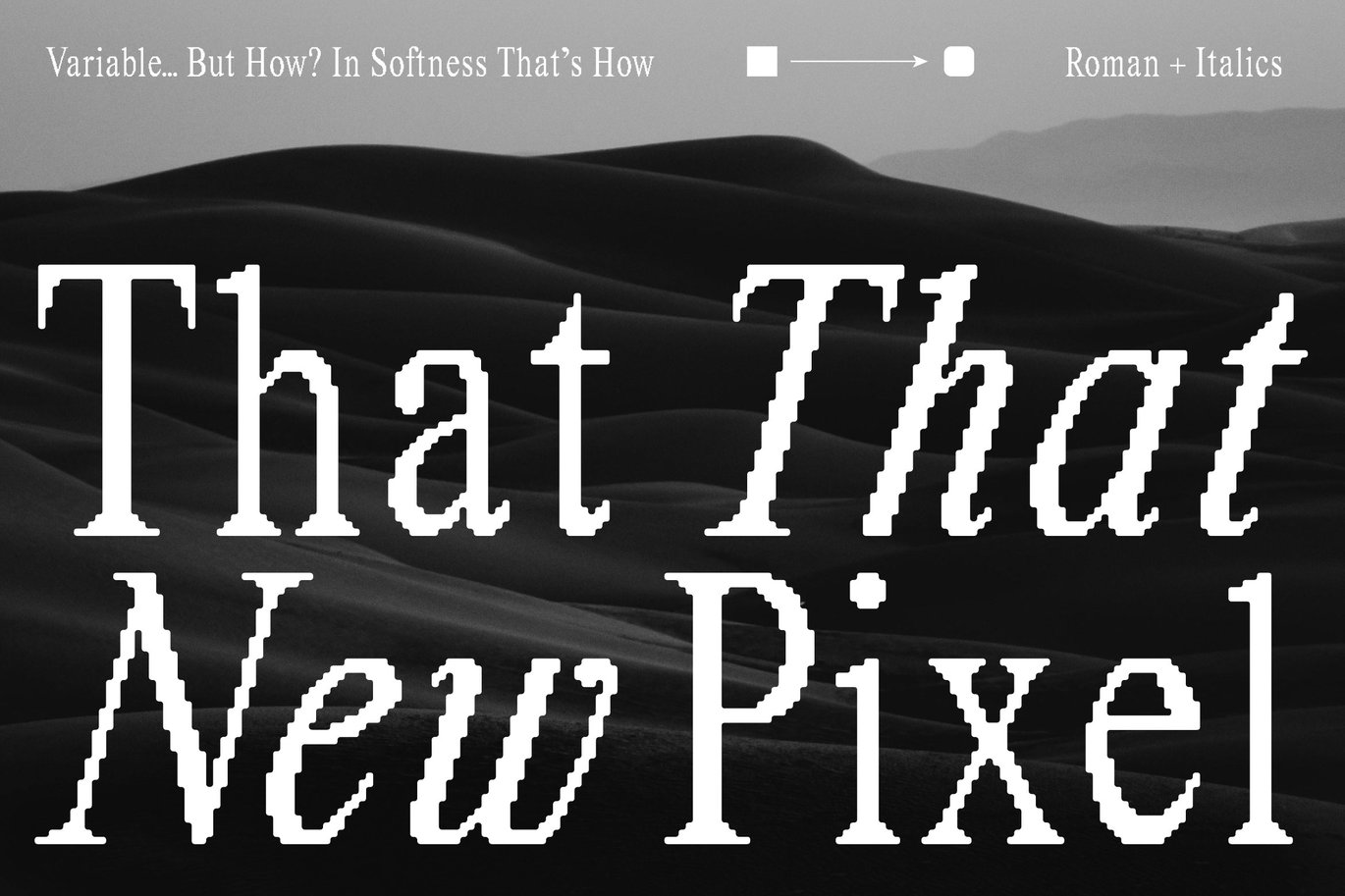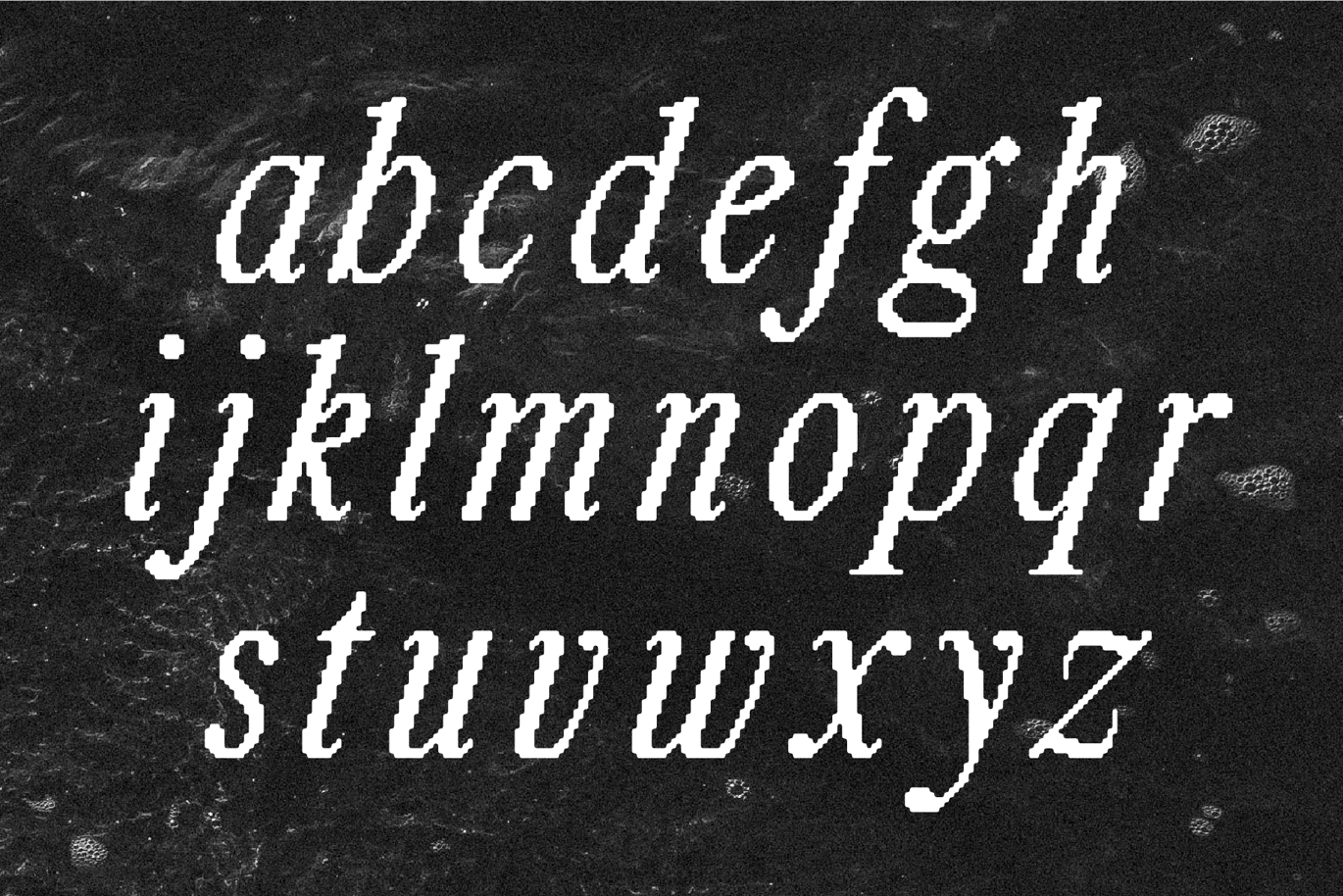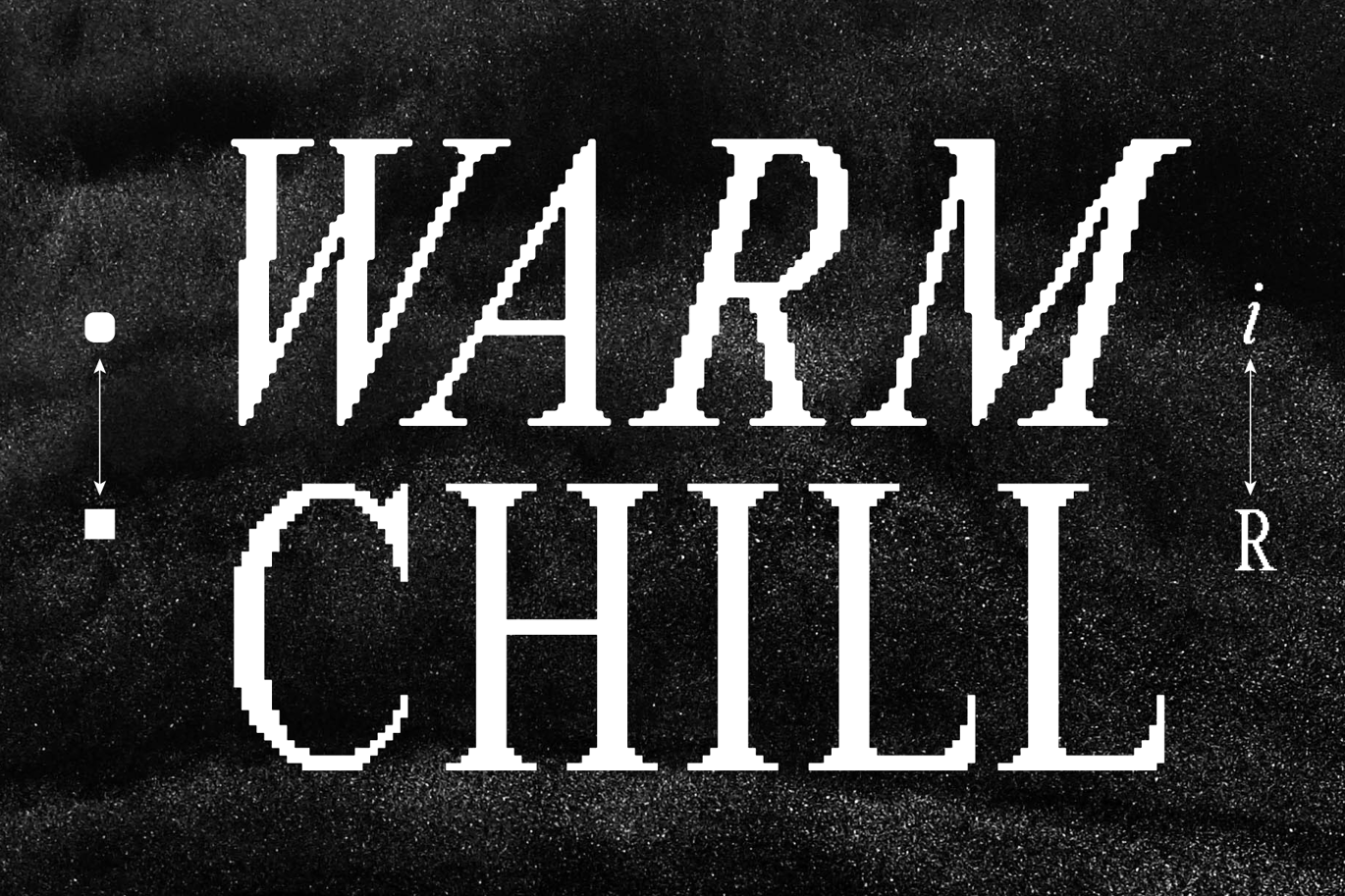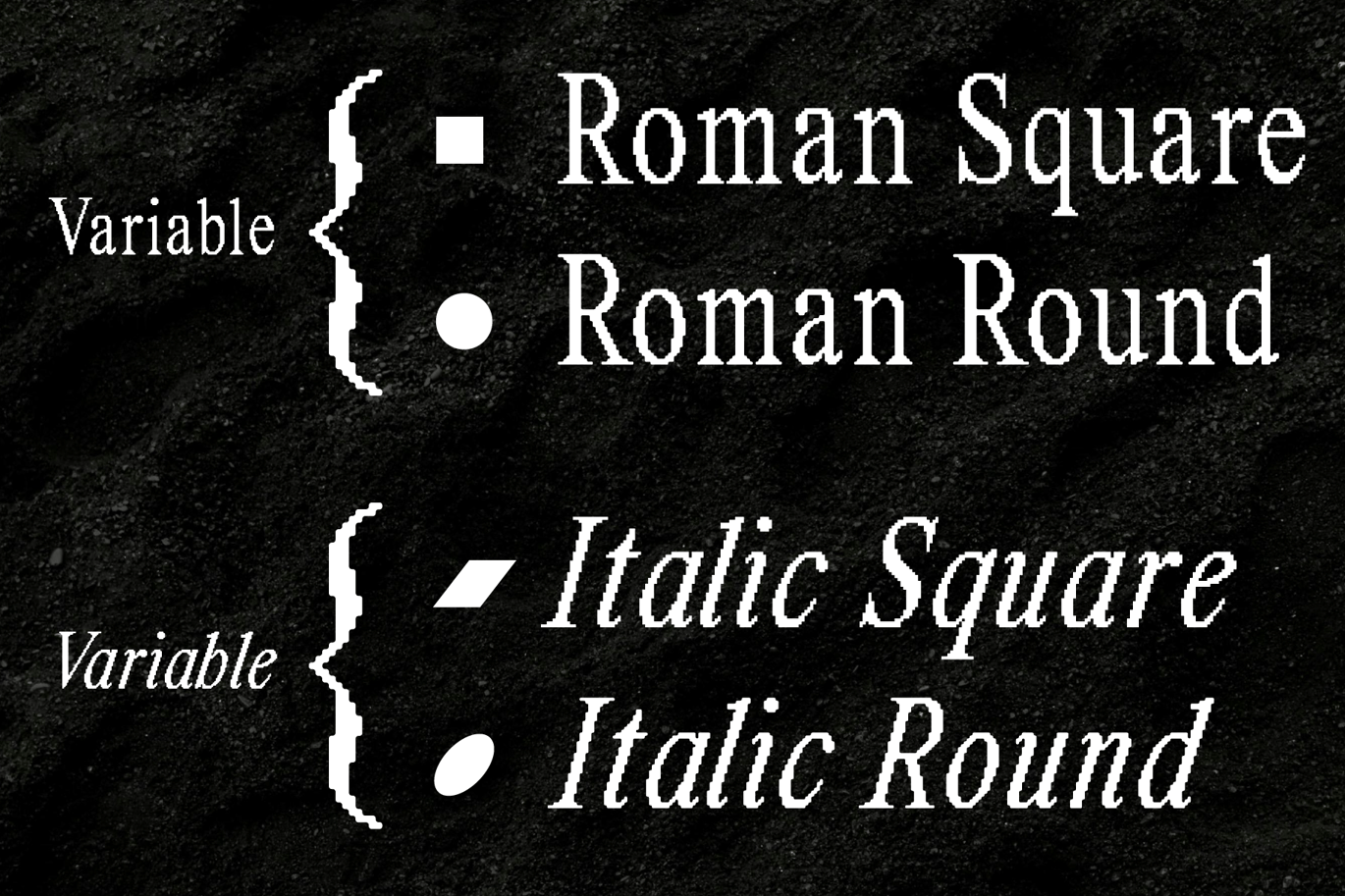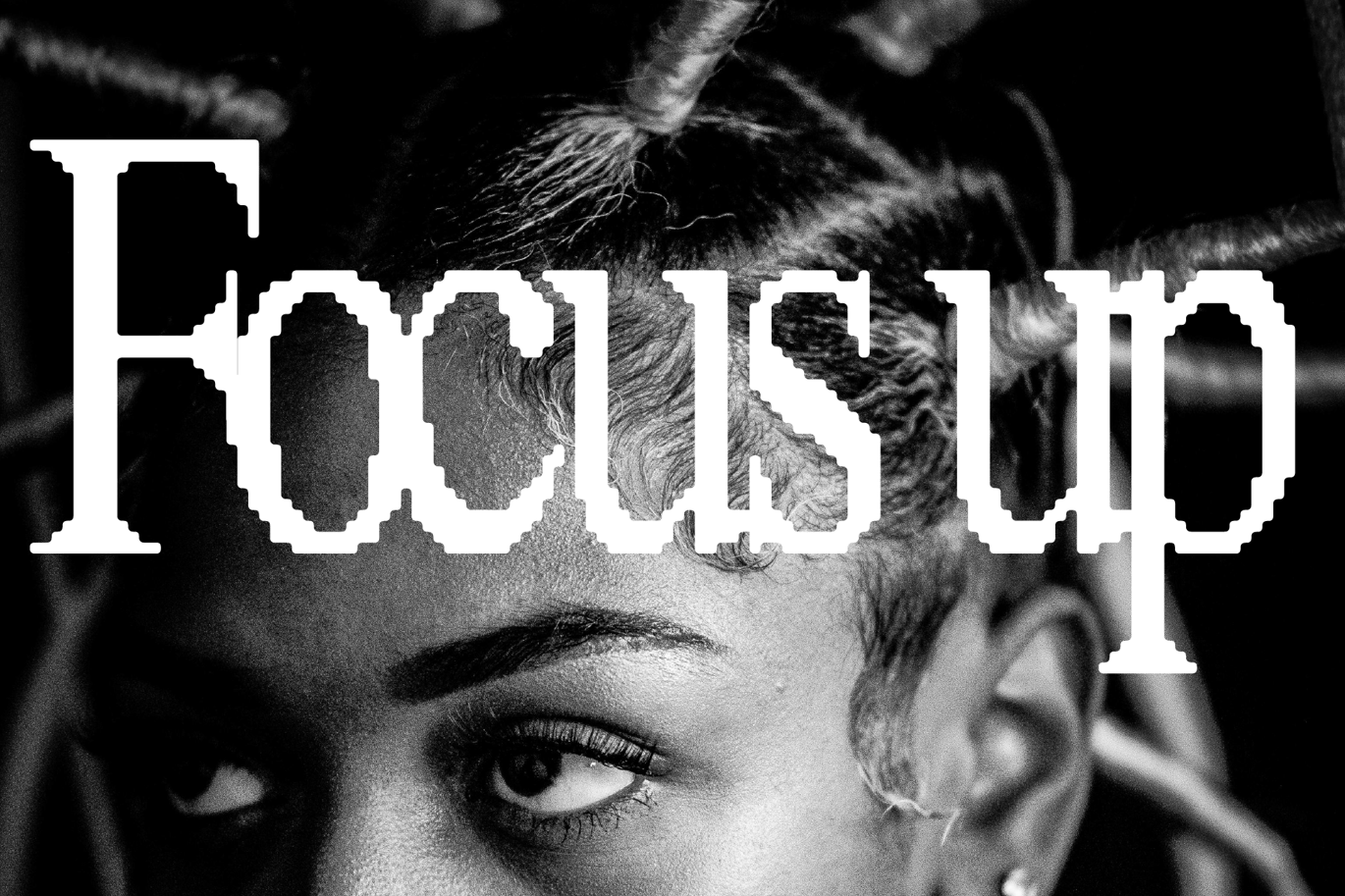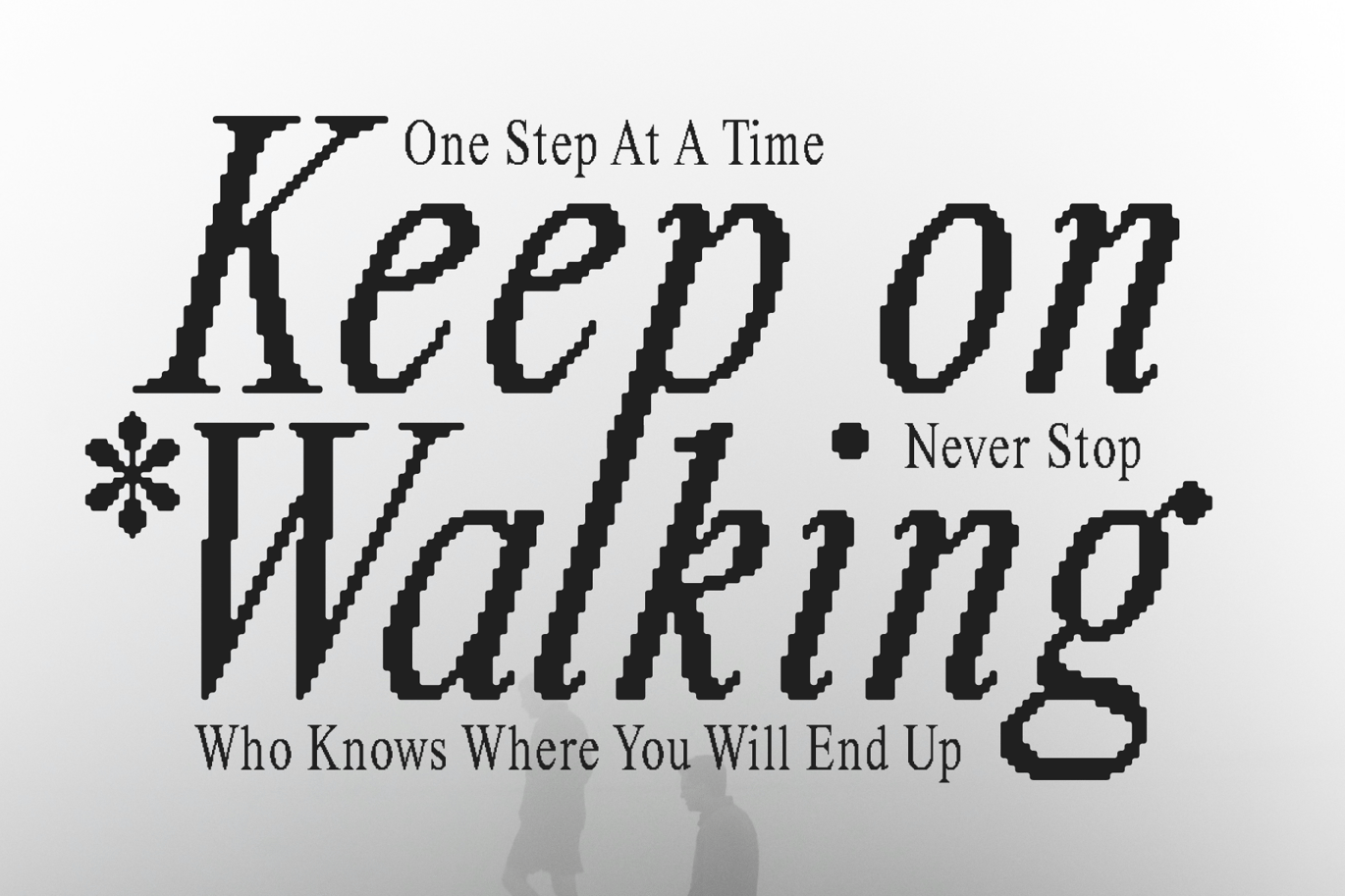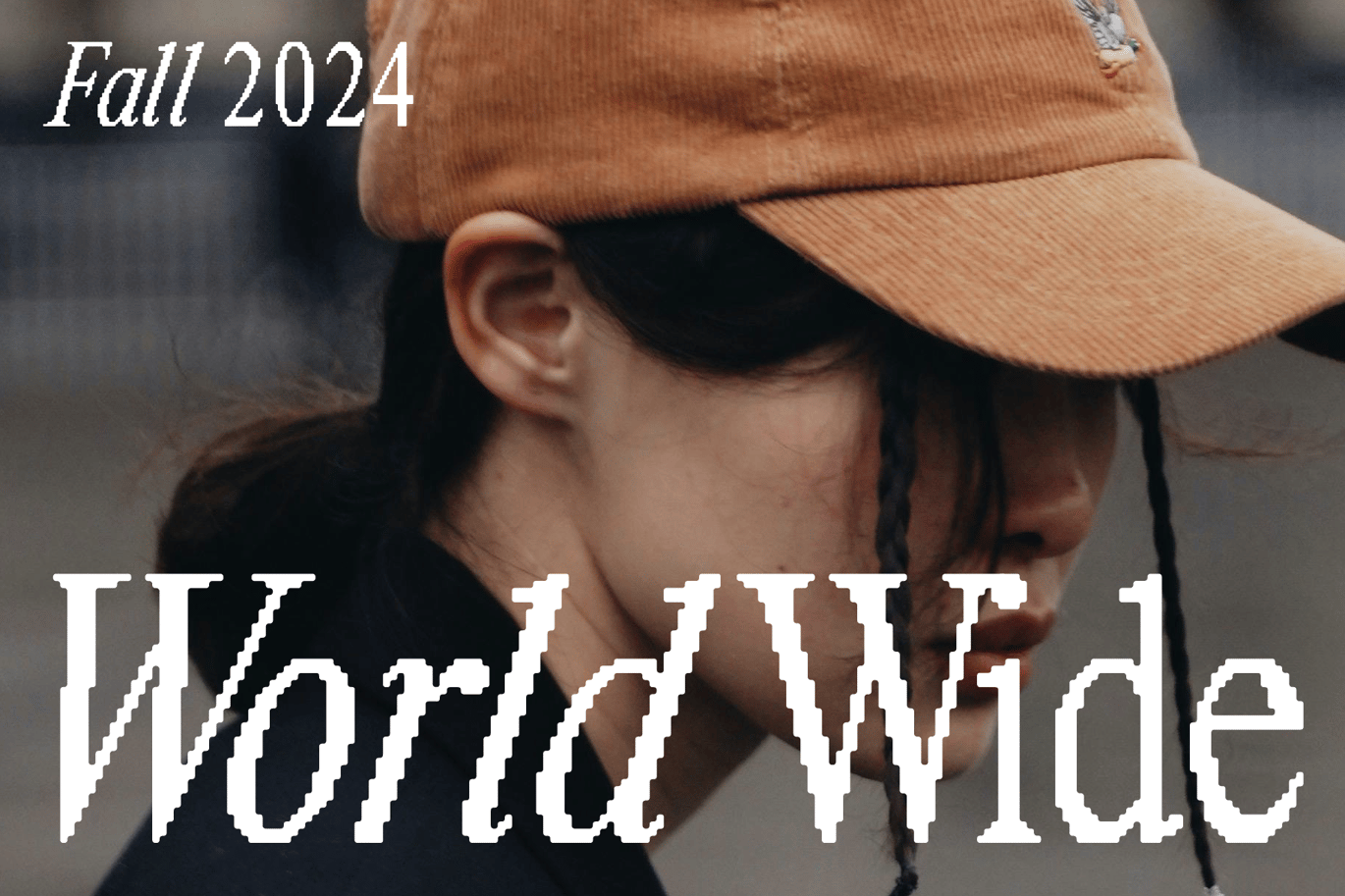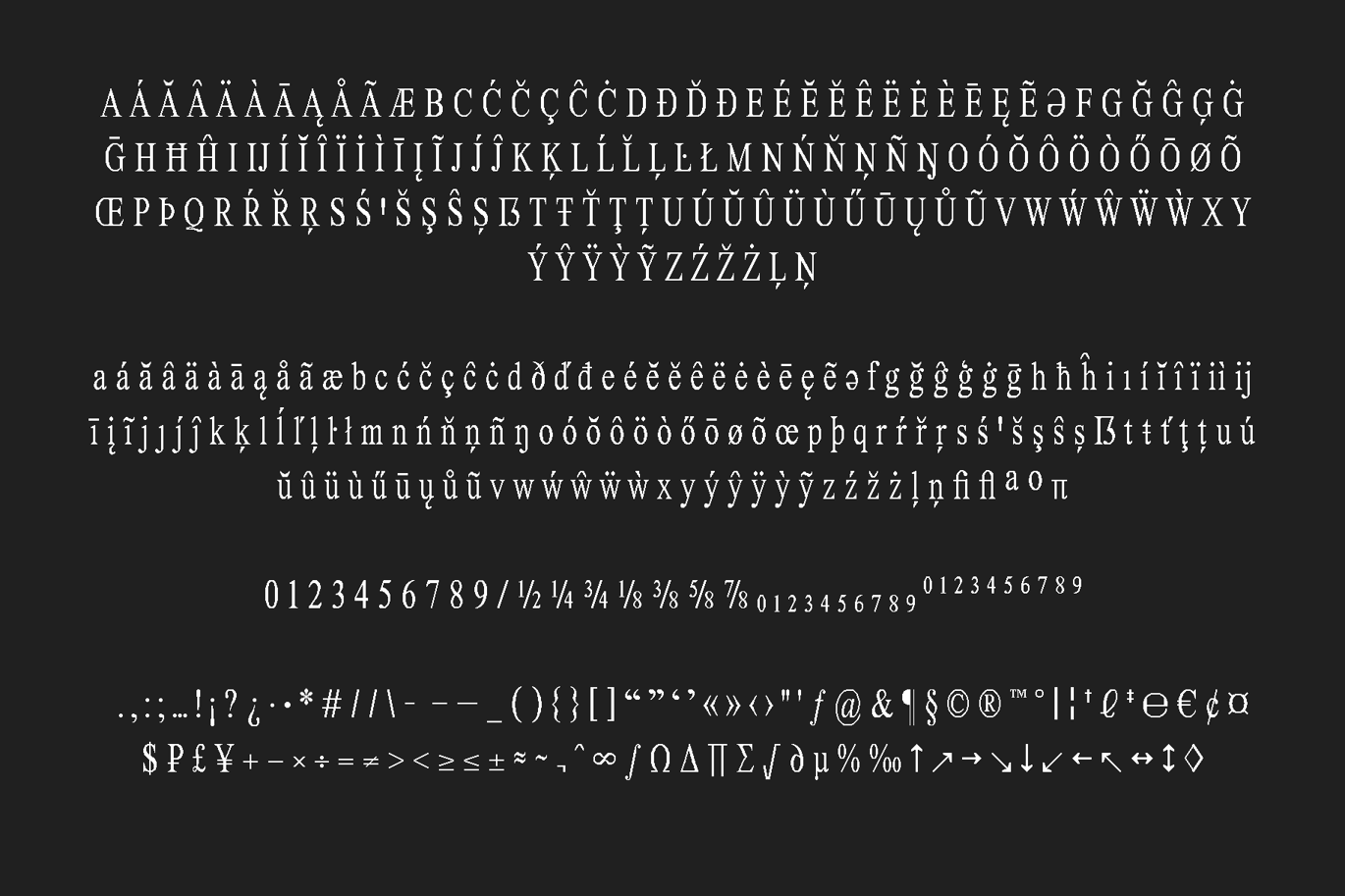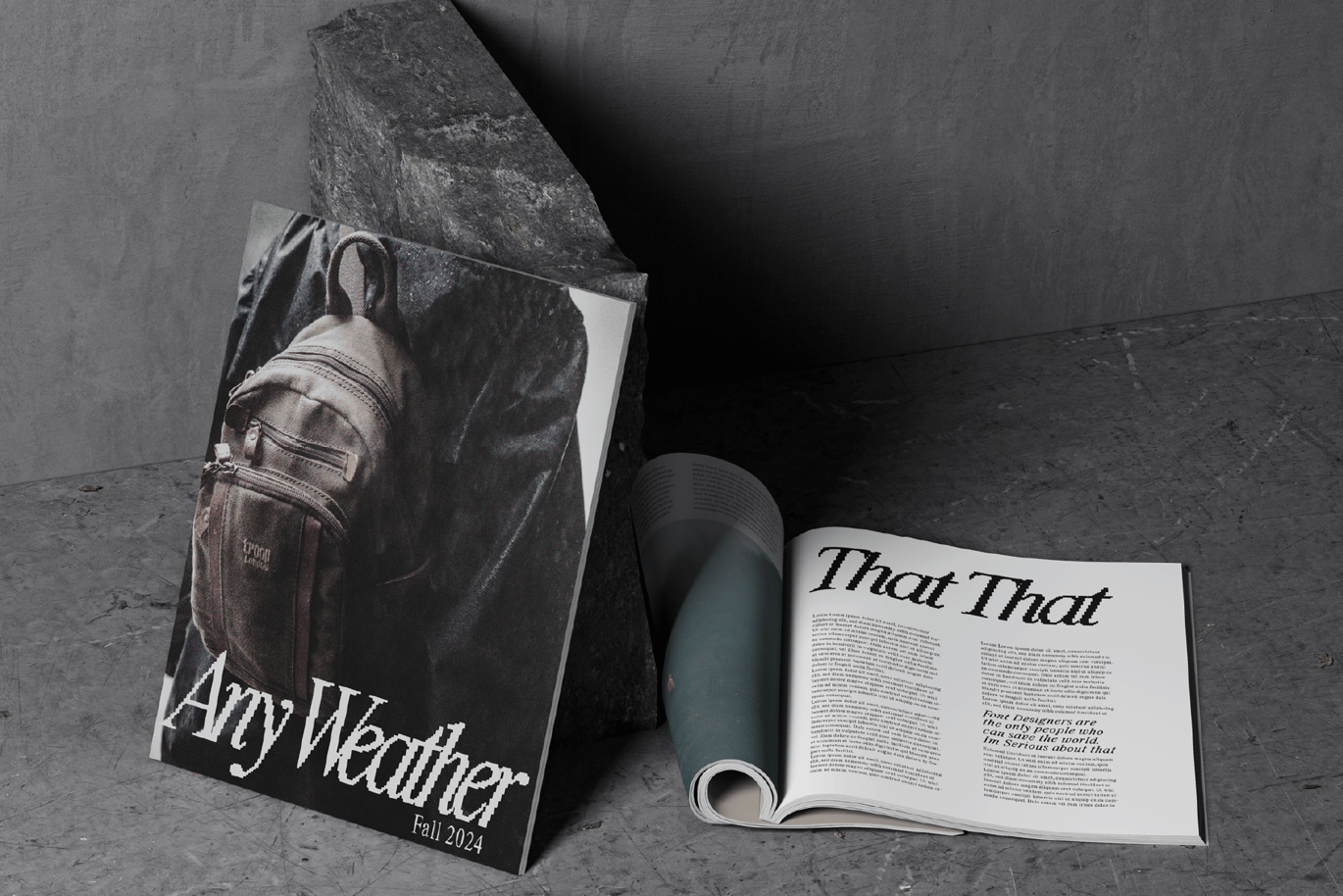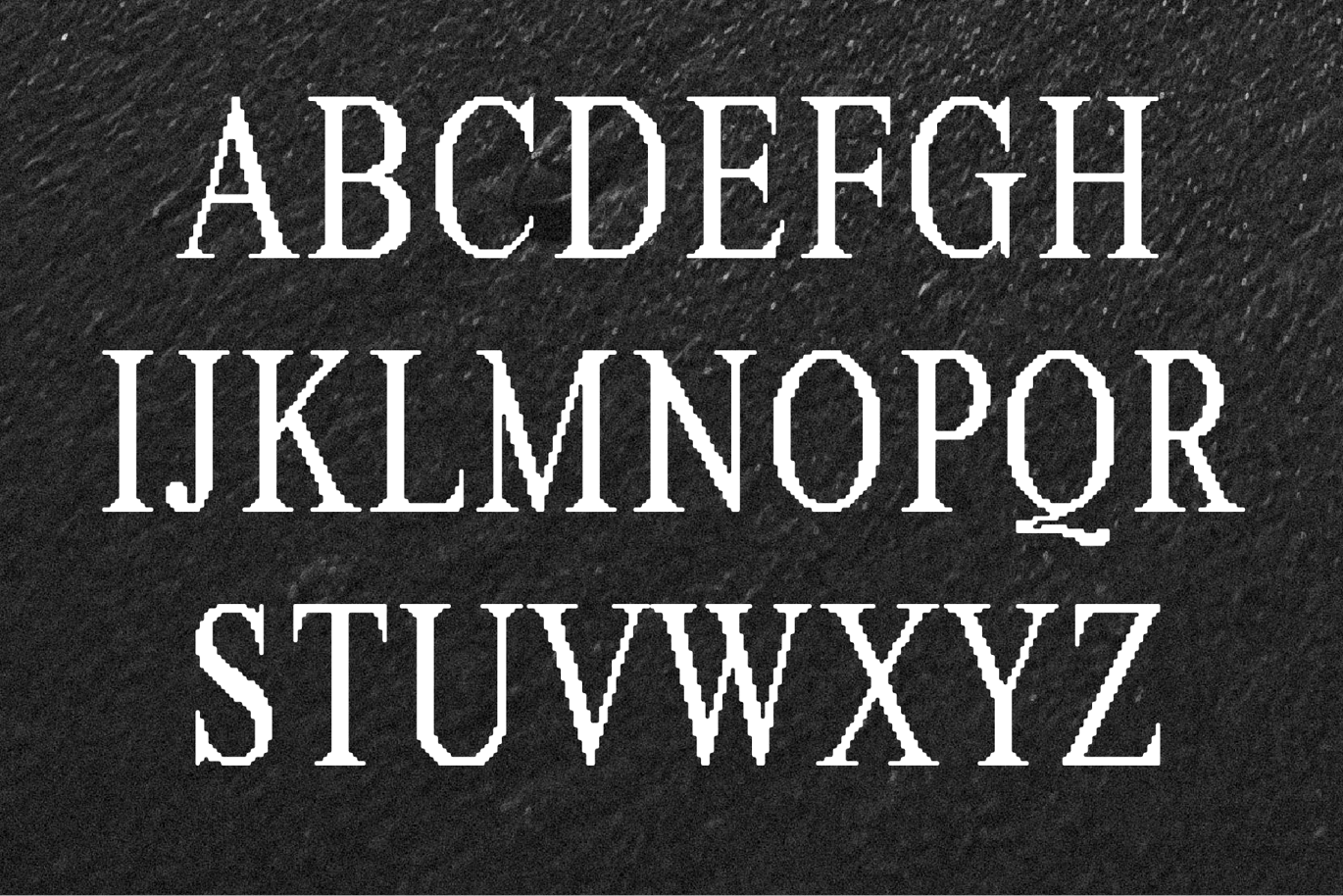
Retro Pixel Font TT New Pixel
This Retro Pixel Font is not your average Pixel Font. That That New Pixel Is variable so you can ad some roundness to the letters. This Font comes in roman and italic. It is perfect for giving your retro or contemporary design work an elevated look that most pixel based font miss. Perfect for Posters, or magazines, Products, logos, branding, social media or whatever else you are looking to give some retro warmth to.
- Uppercase Lowercase Punctuation
- Latin 3 language Support